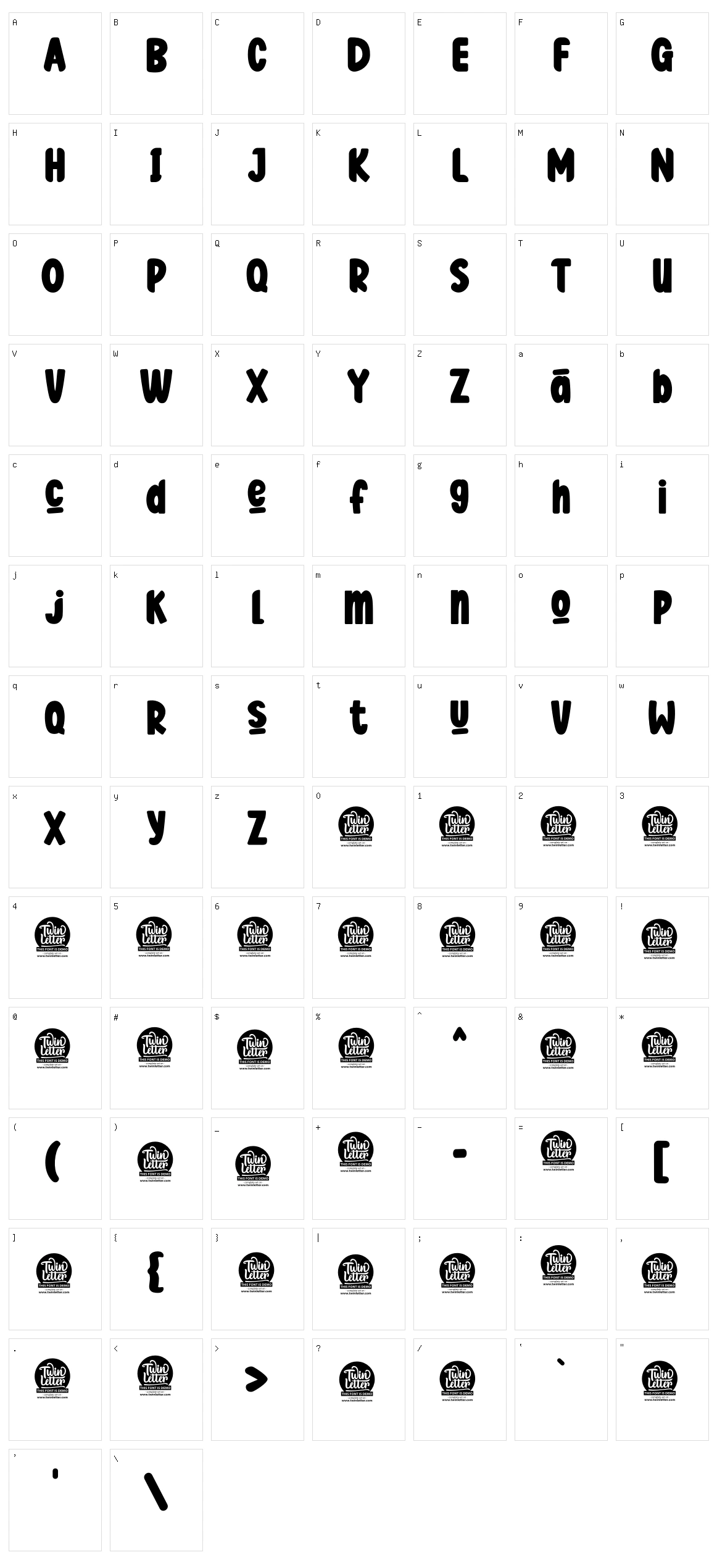
The free font Cutney is carefully designed by twinletter, showcasing a thoughtful balance of creativity and usability and falls under the Cartoon font style. When you download the ZIP file, it contains only 103.31 KB of font files, making it lightweight and quick to download. Please review the license details below to understand permitted usage and distribution rights. If license information is not available, we recommend using this font for personal projects only or contacting the author directly for commercial usage permissions.